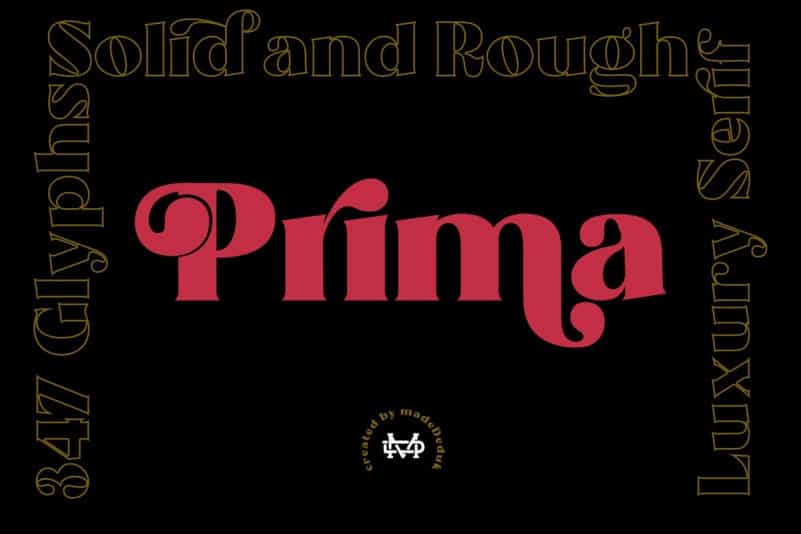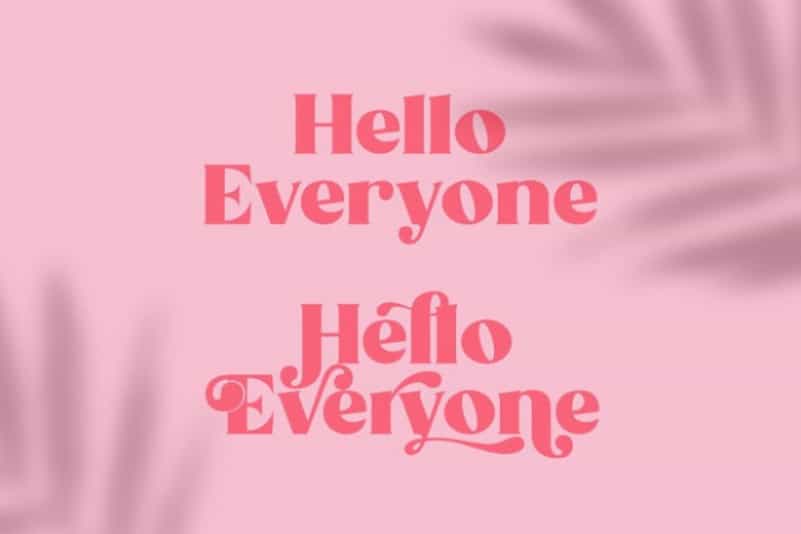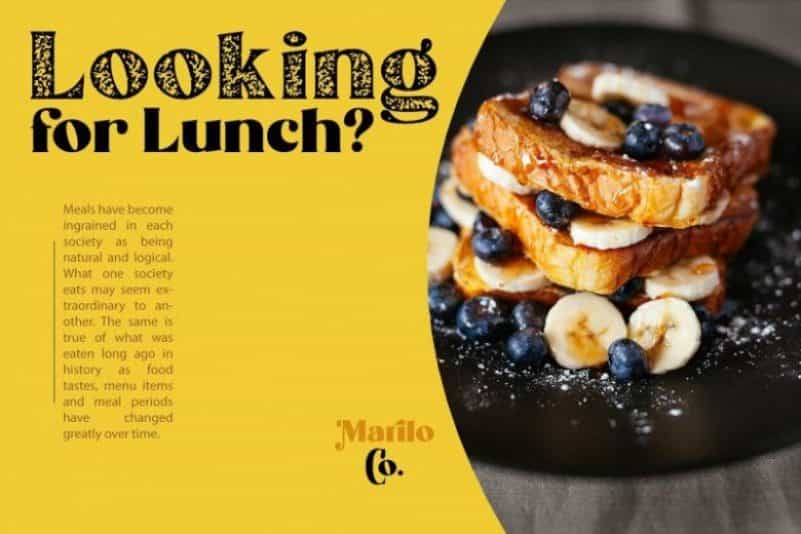
Prima Font is a strong serif font with the same solid look, balance and beauty in its curved alternate characters. Prima also has alternative characters that were made with great care to add a minimalist decor of the letters. and it looks good on every character we’ve created.